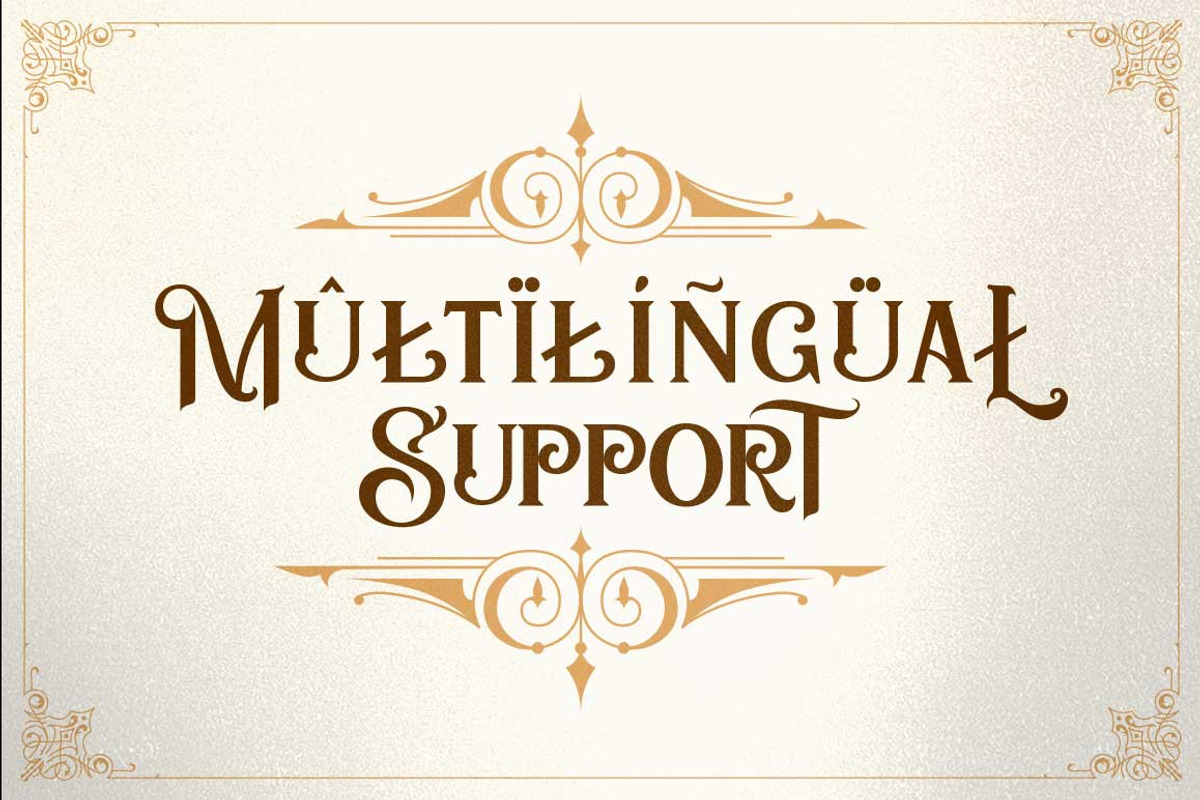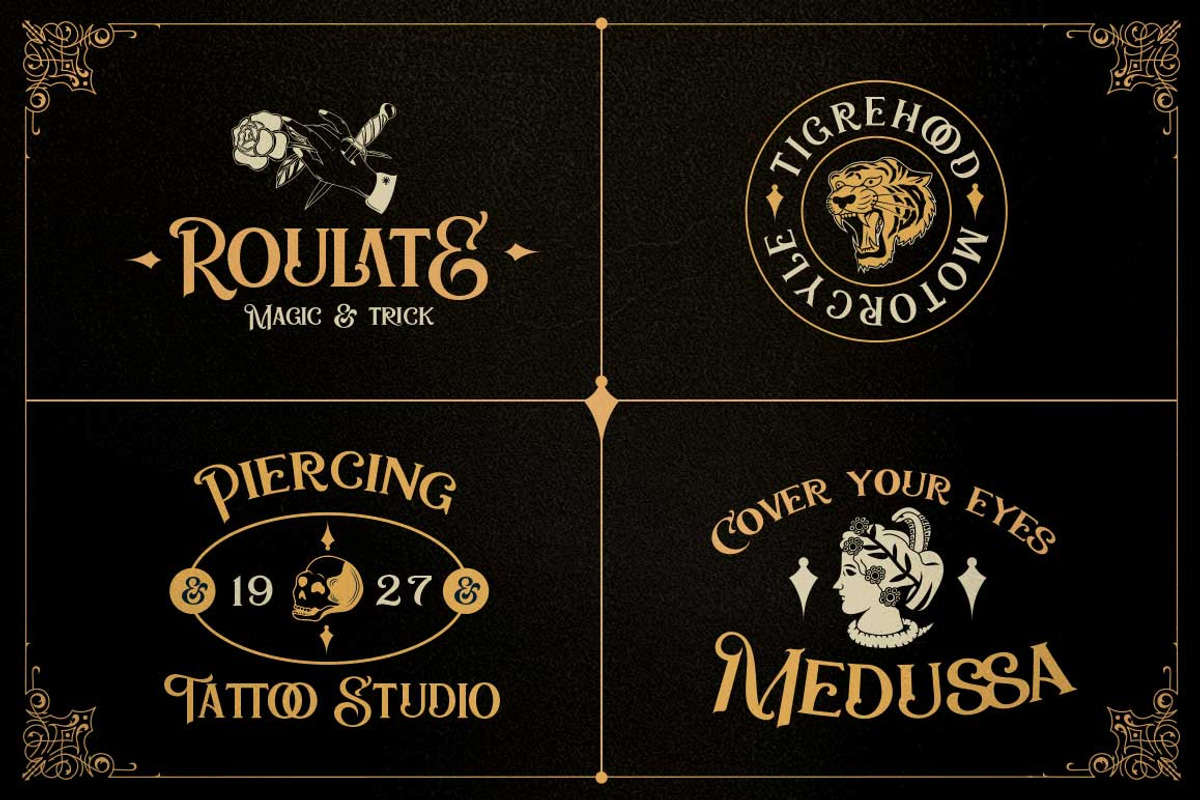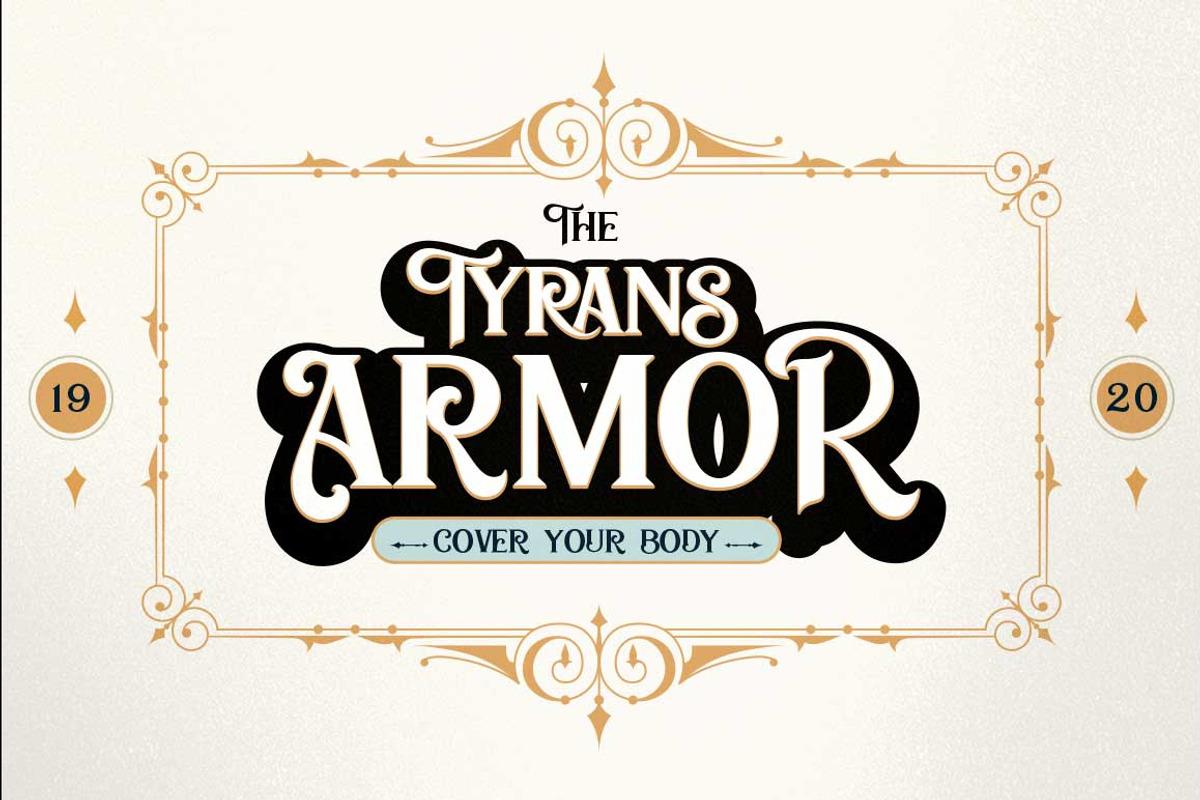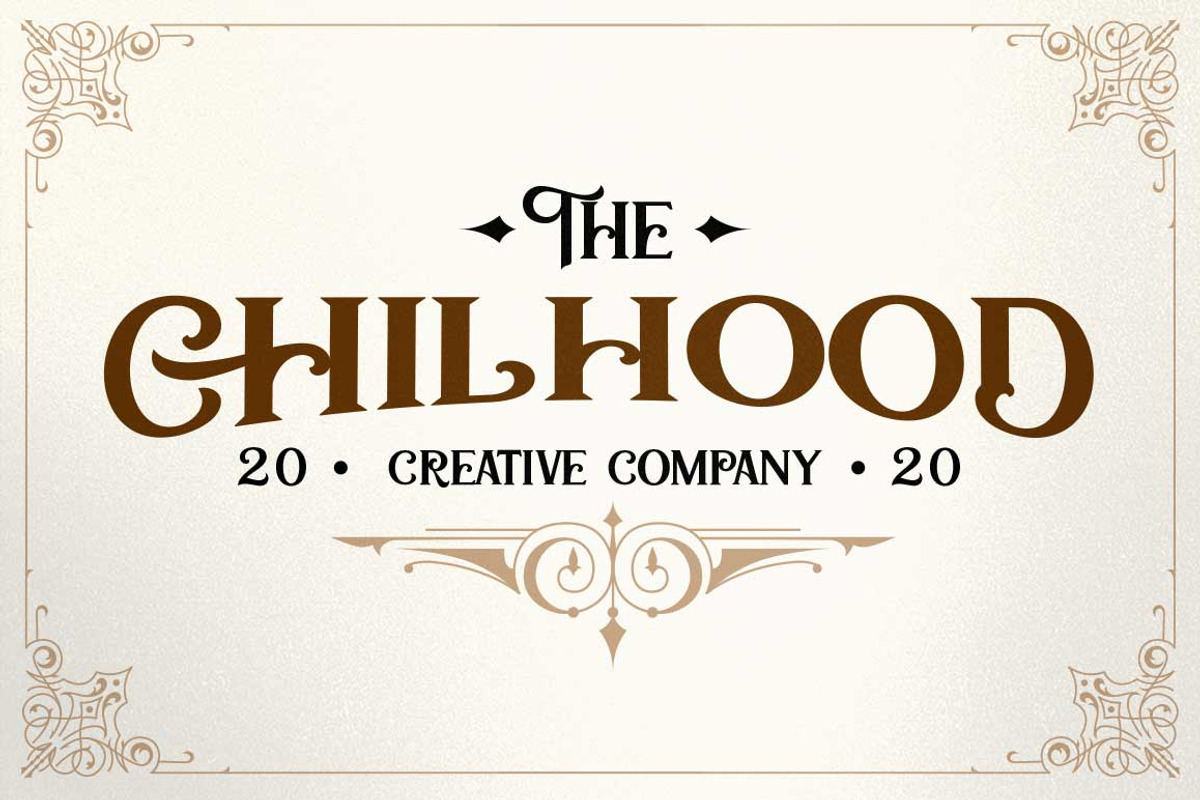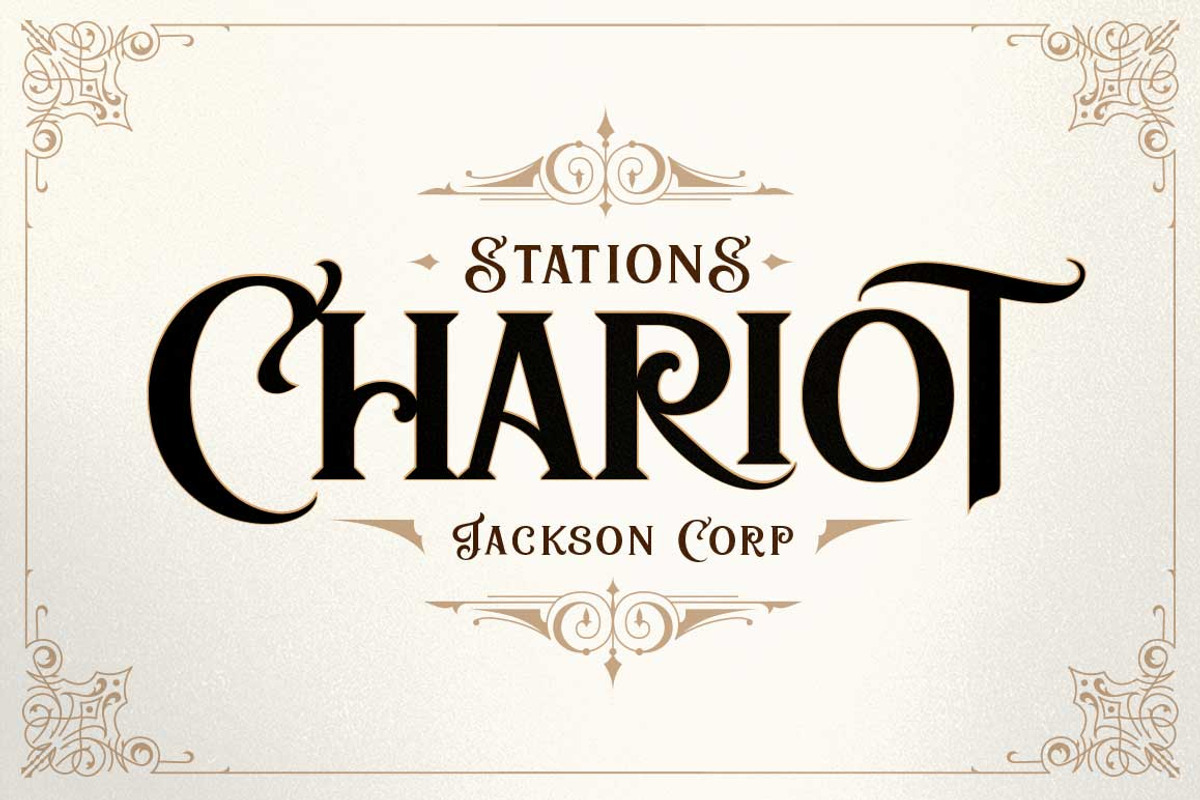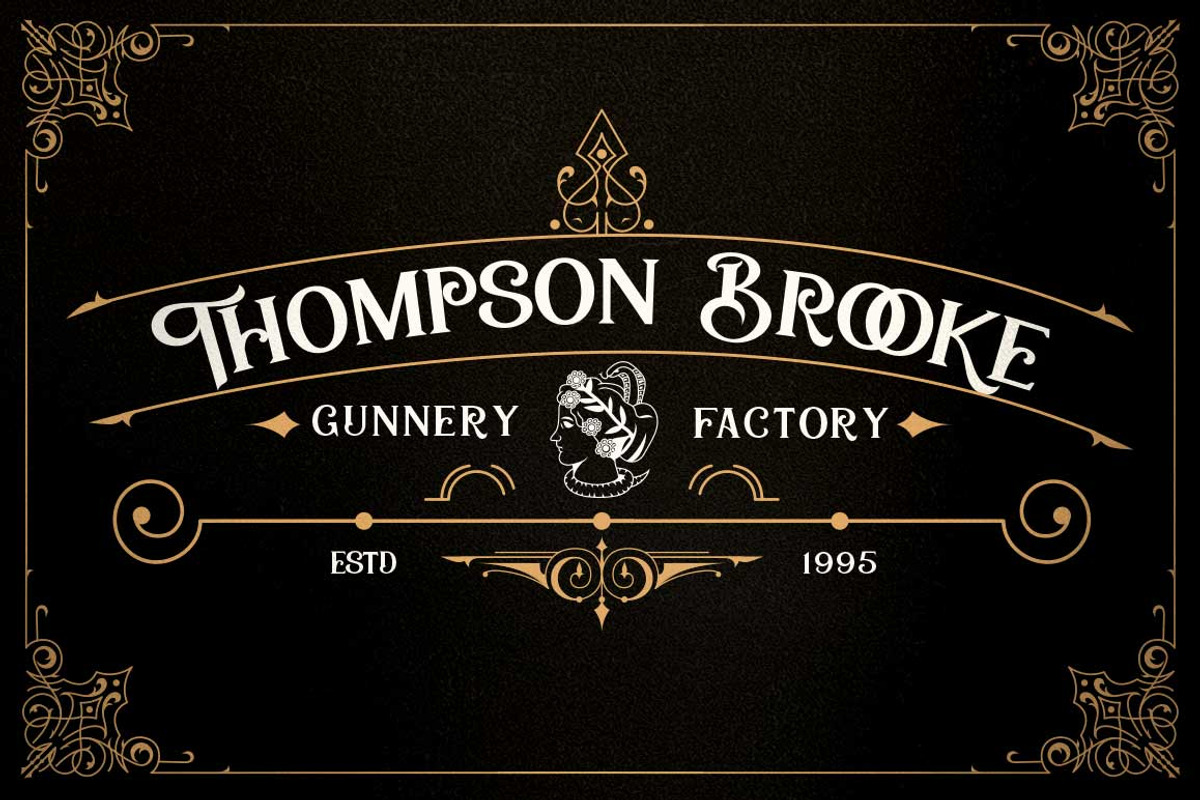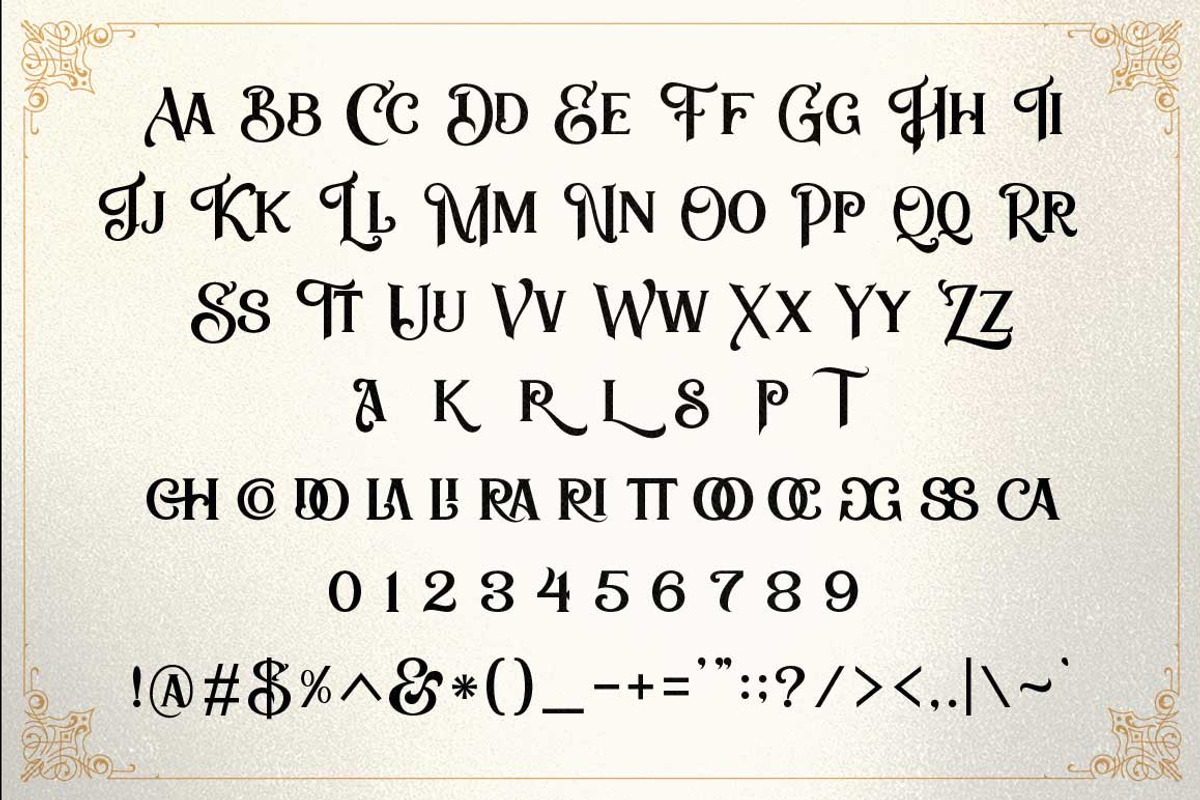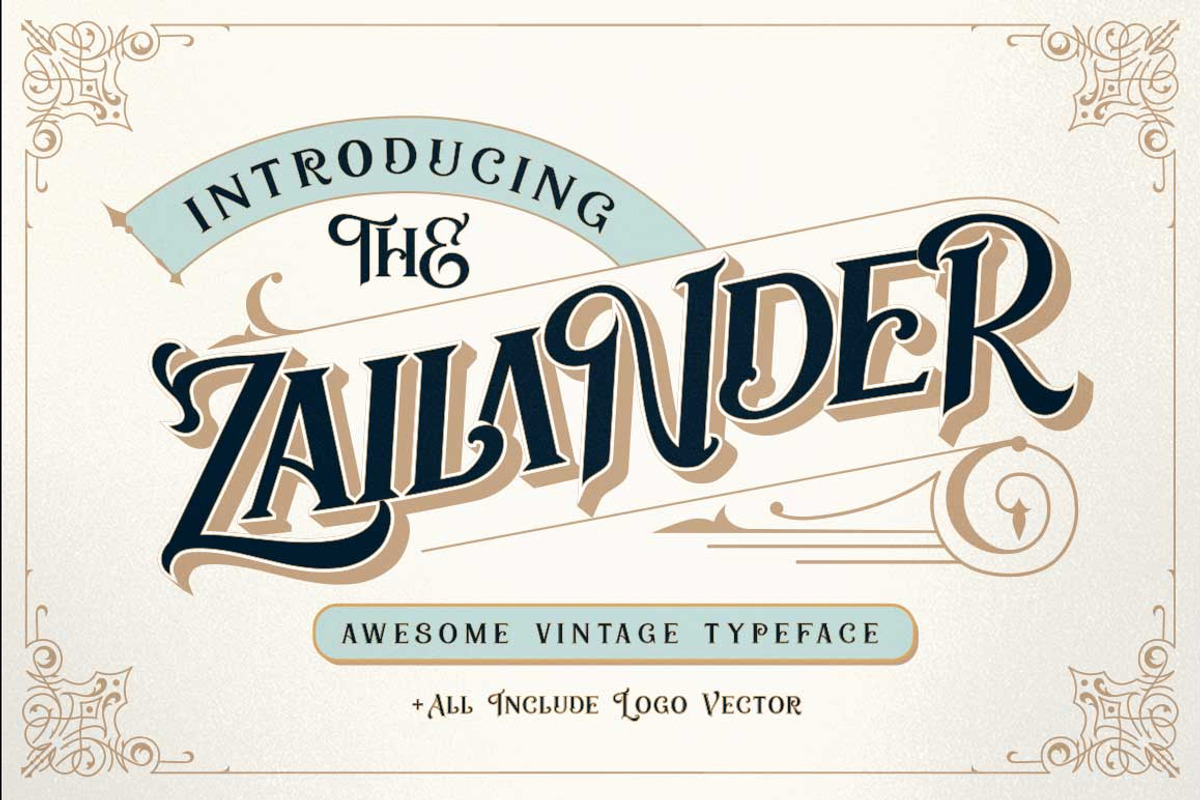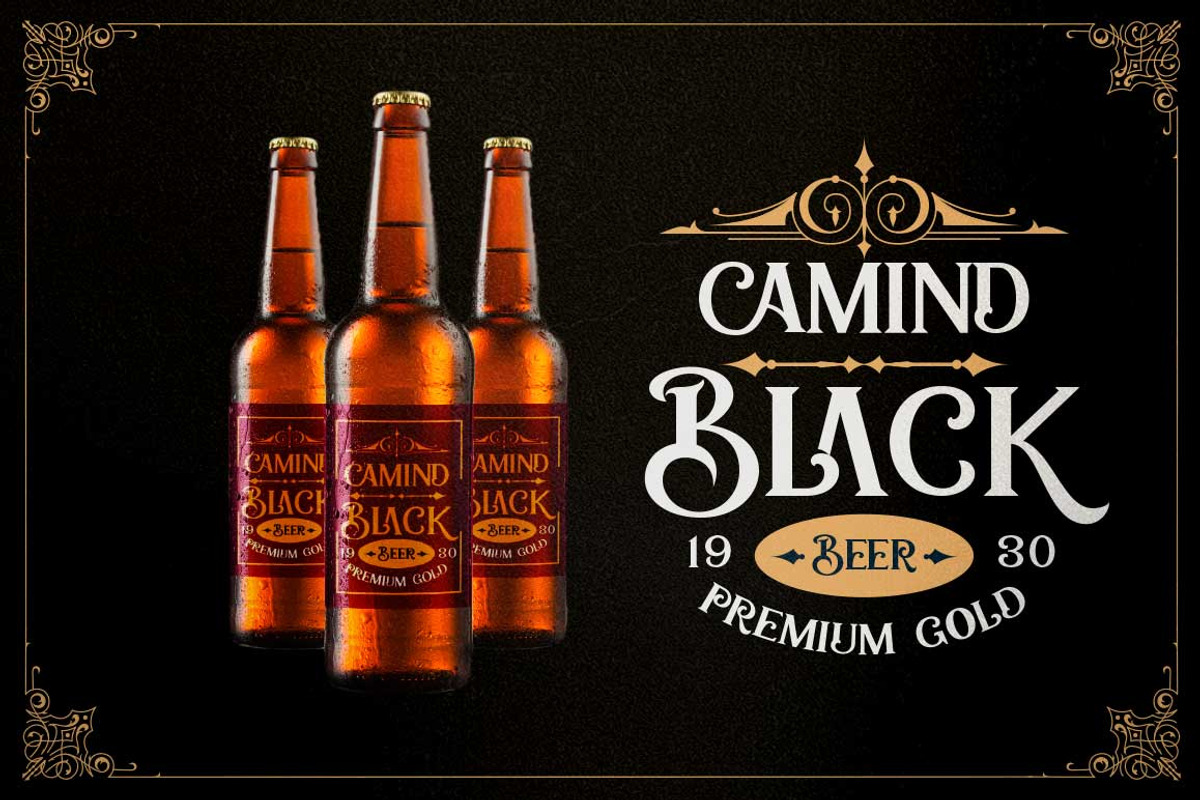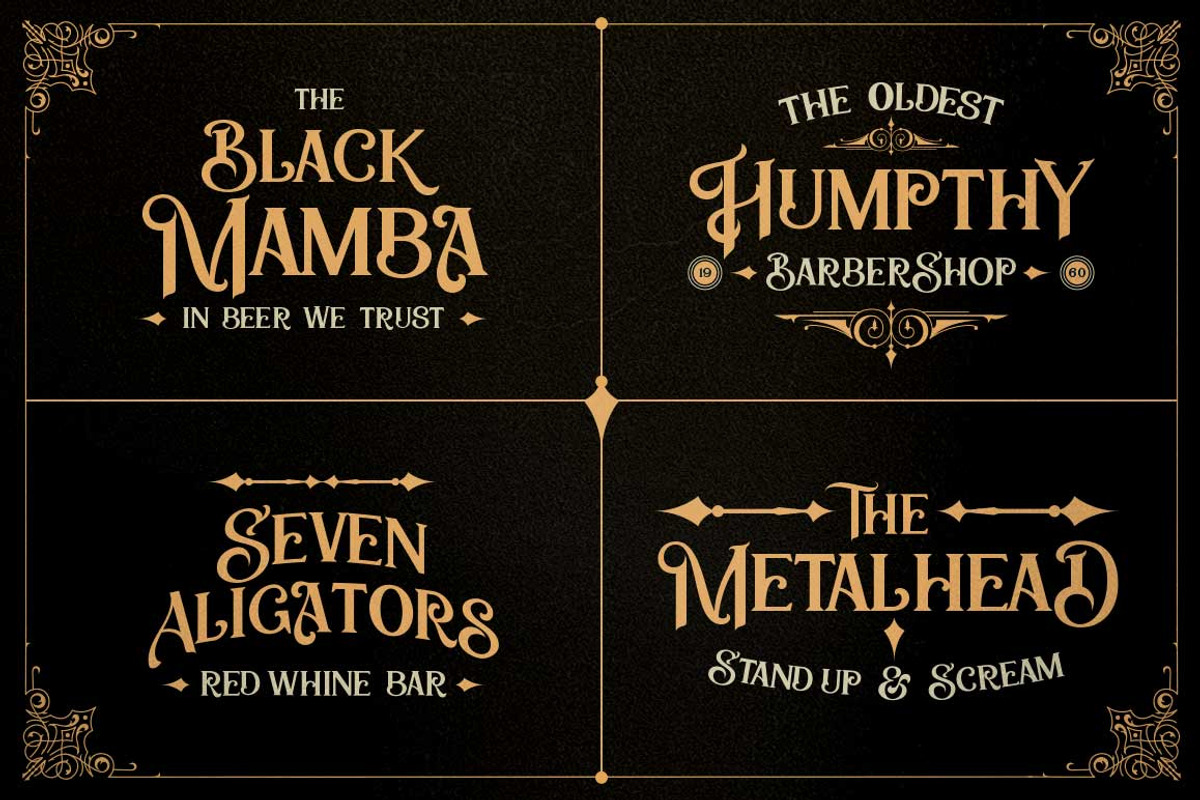
Zailander - Vintage Font + Logo Set
Zailander is a font inspired by beautiful vintage sign art and lettering. The font comes with special uppercase letters and some alternate characters to give your designs an elegant and artistic look. It is perfect for logo and packaging design, short phrases or headlines. Furthermore the product includes a set of vector ornaments and logo.
The alternative characters were divided into several features such as Stylistic Sets, Stylistic Alternates, Contextual Alternate, SWASH and Ligature. The Open Type features can be accessed by using Open Type savvy programs such as Adobe Illustrator, Adobe InDesign, Adobe Photoshop Corel Draw X version, And Microsoft Word. And this Font has given PUA unicode (specially coded fonts). so that all the alternate characters can easily be accessed in full
- Alternates and Ligatures